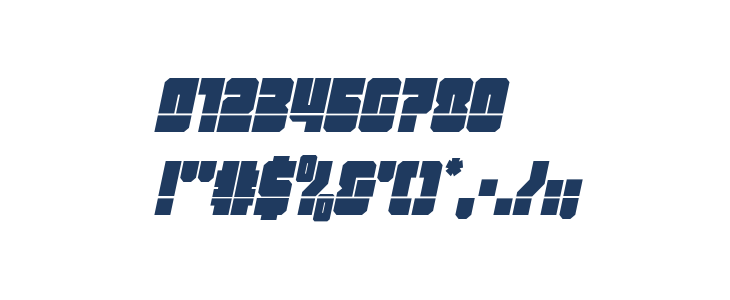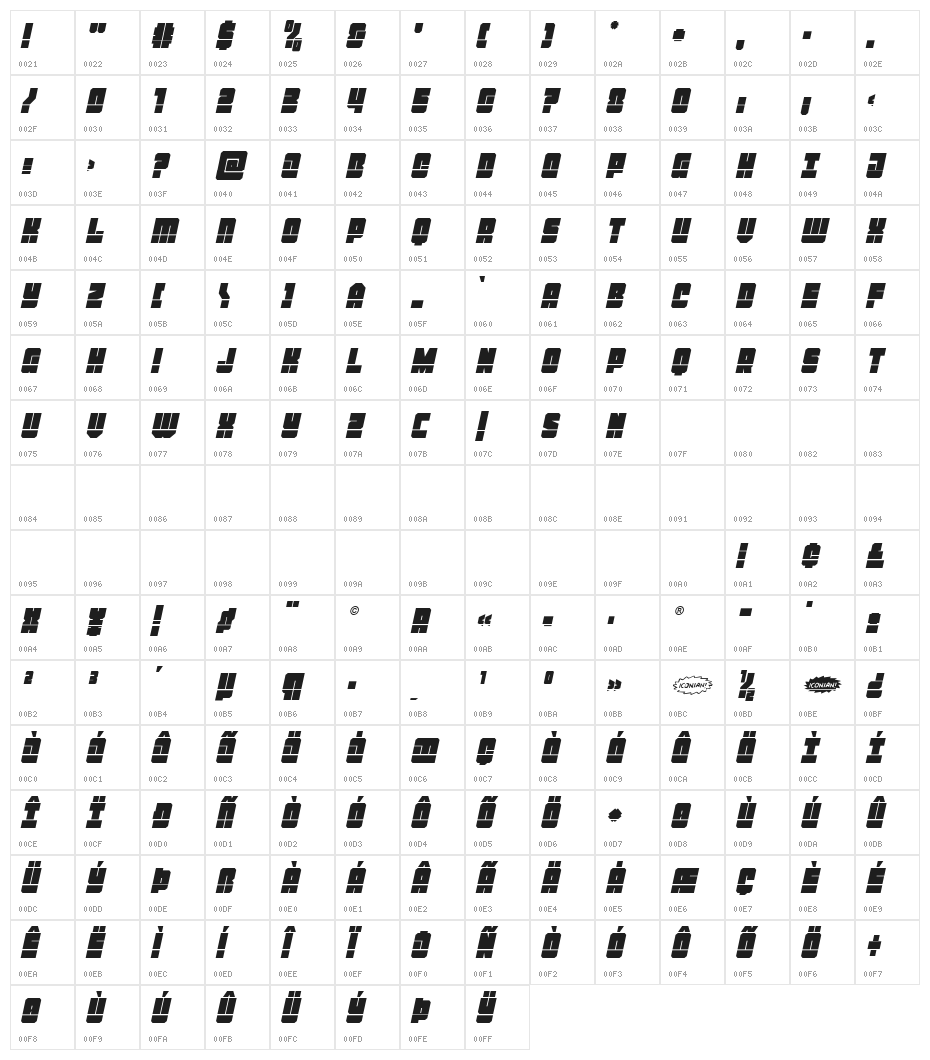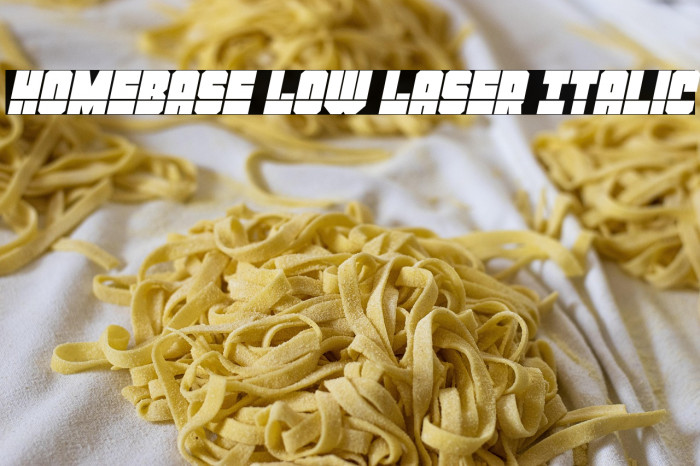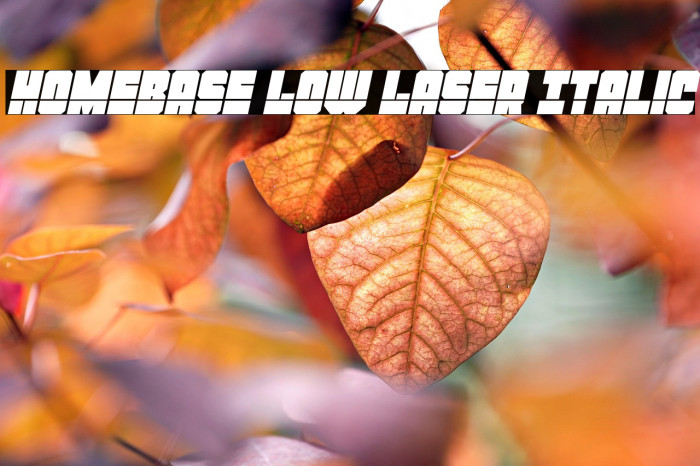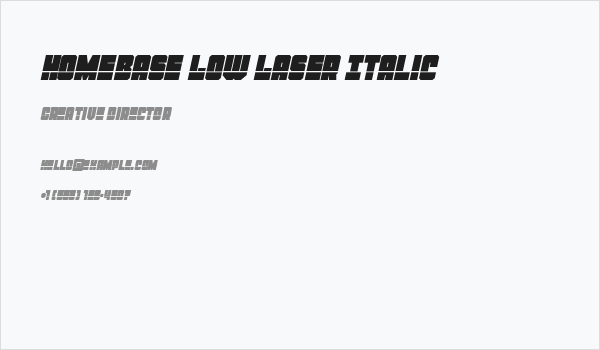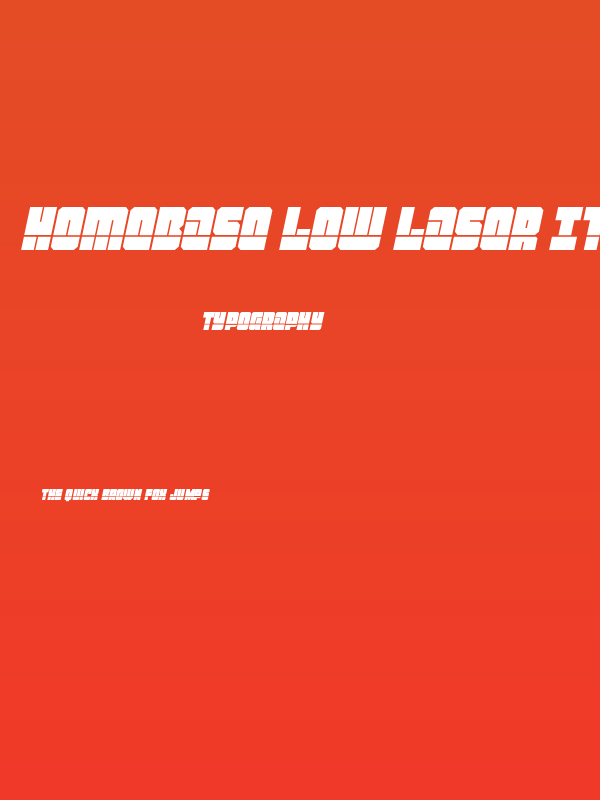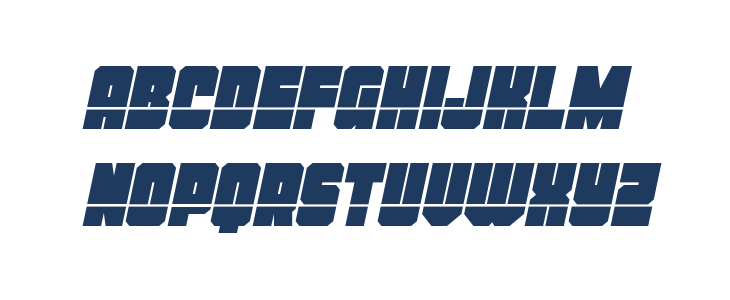
Homebase Low Laser Italic Font
Homebase Low Laser Italic Description
This font features a bold, angular design with a futuristic and industrial feel. The characters are heavily stylized with sharp edges and a blocky structure, giving it a distinctive and aggressive appearance. The italic slant adds a dynamic and forward-moving energy, making it ideal for attention-grabbing headlines or branding that requires a modern and edgy look. The uppercase and lowercase letters maintain a consistent style, with the numbers and special characters seamlessly integrated into the overall design. The font's unique aesthetic makes it suitable for projects that aim to convey strength, innovation, and a cutting-edge vibe.